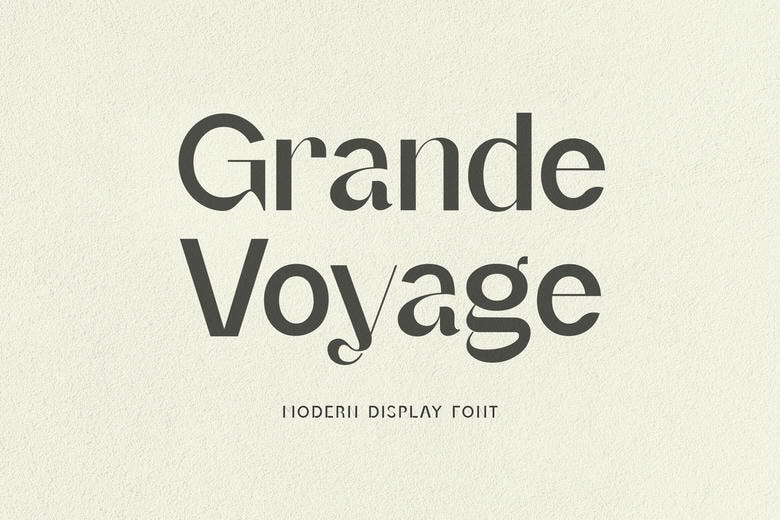
Grande Foyage Font
Grande Foyage Modern Display Font. The modern display font feels beautiful classy, elegant, and stylish. This font is ideally suited for a wide variety of projects, such as signature, stationery, logo, wedding, typography quotes, magazine or book covers, website headers, branding, and more. Also, fashion-related branding or editorial design displays both masculine and feminine qualities.
Grande Foyage Display Font